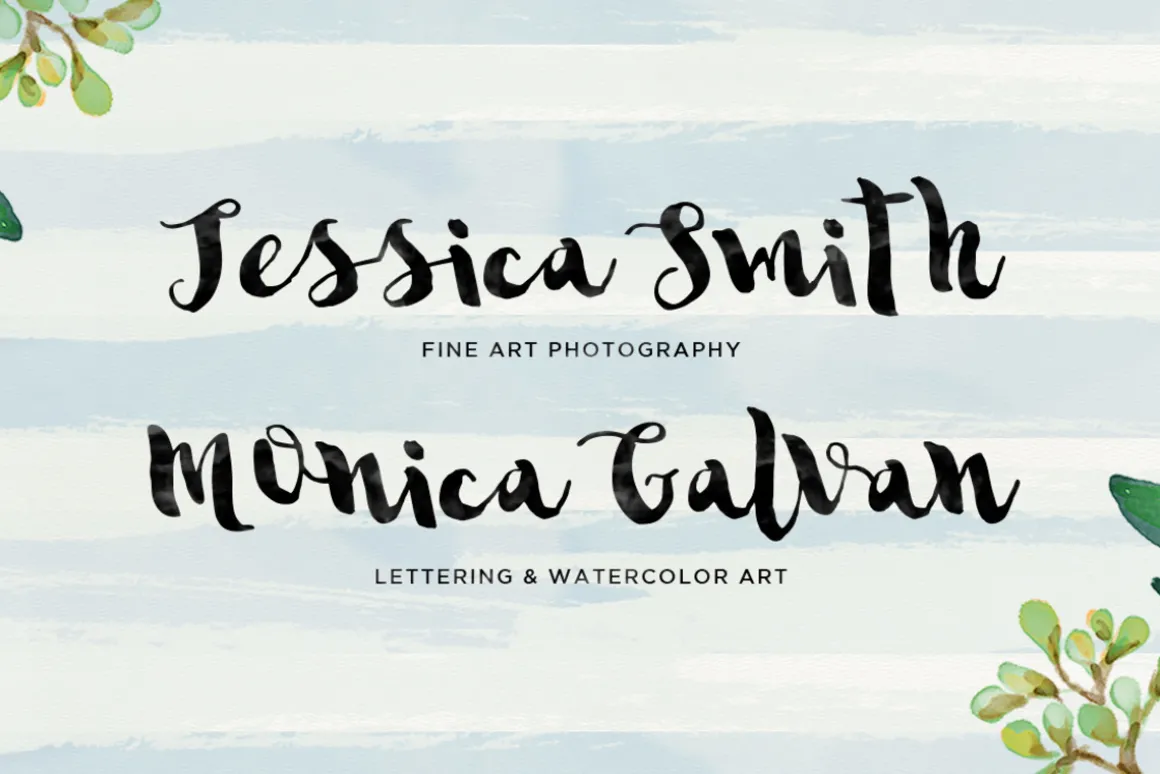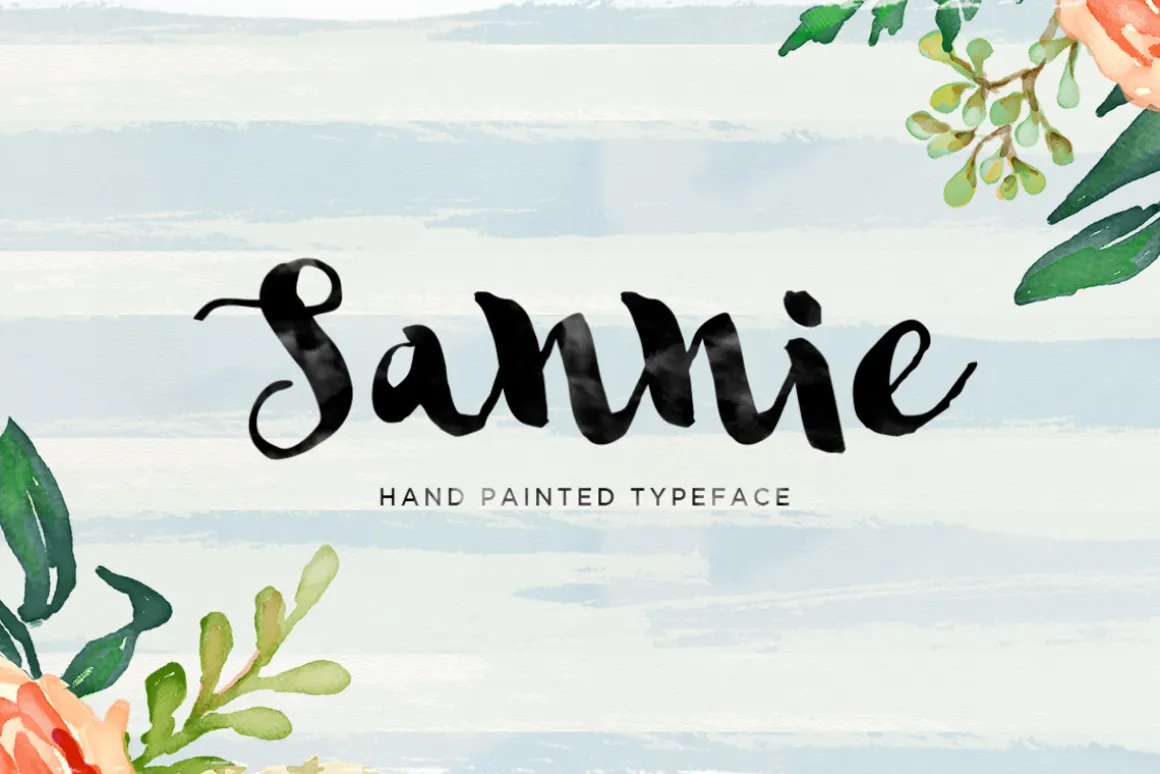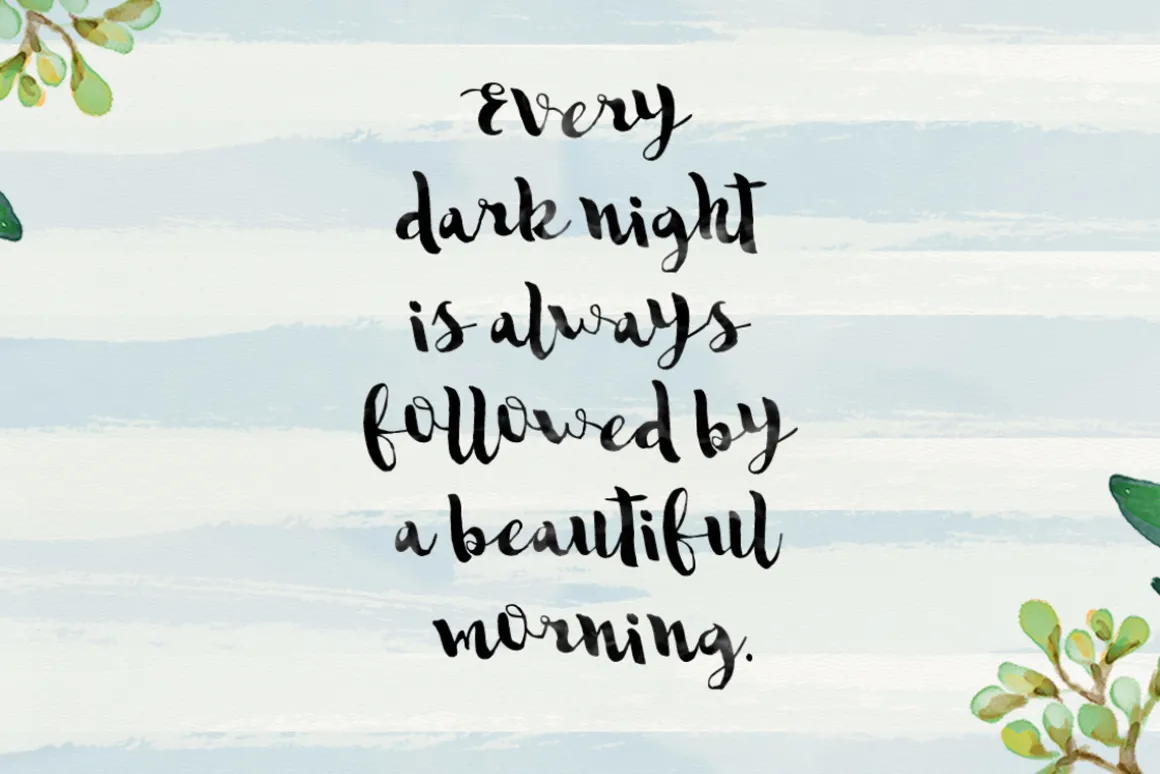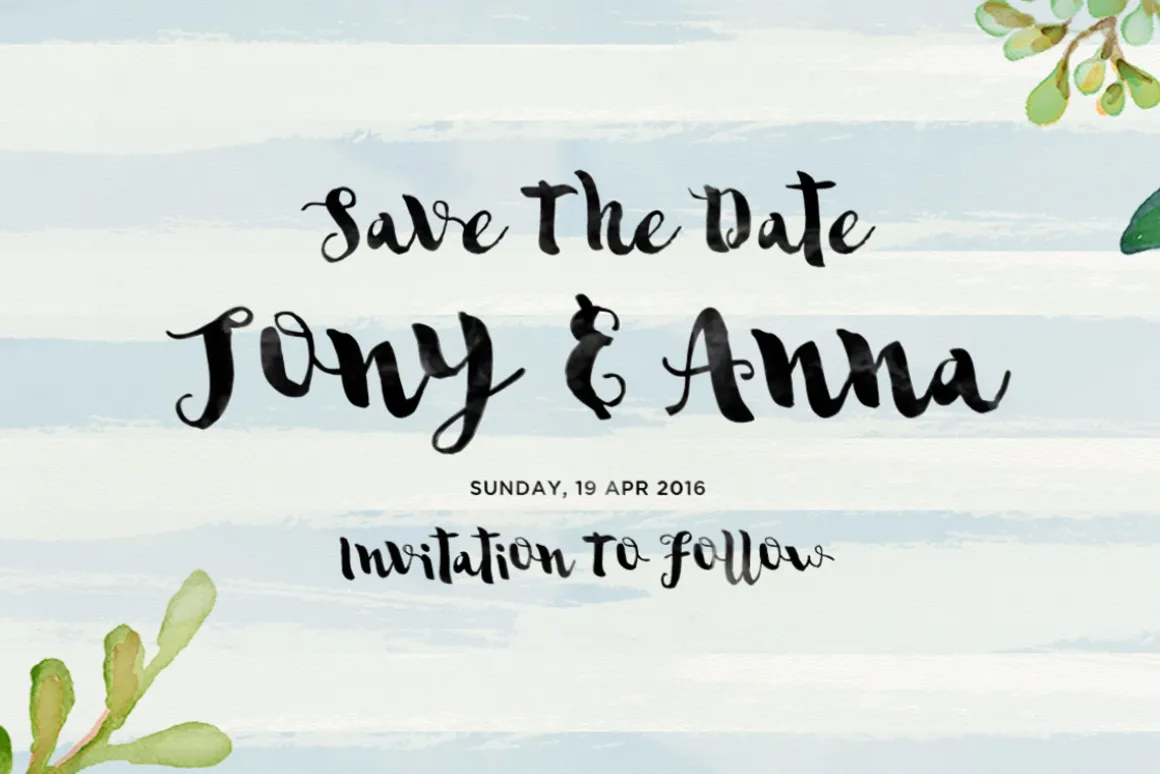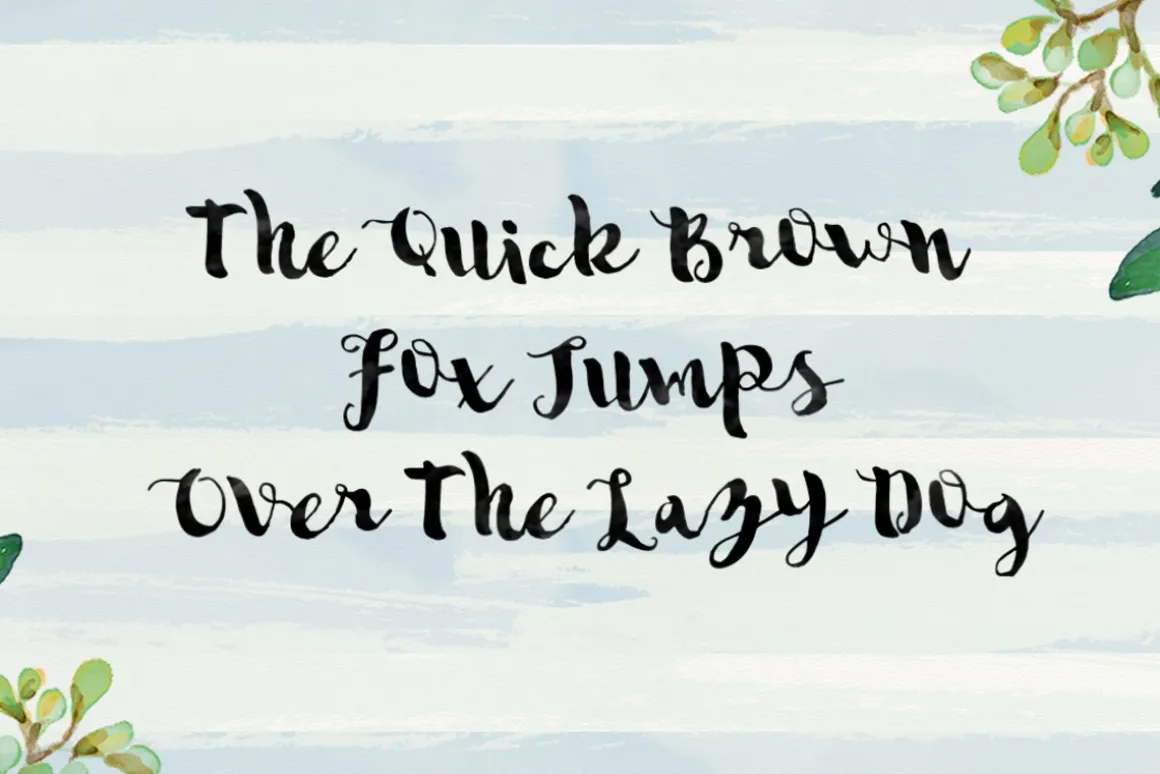
Sannie is a bold hand brushed lettering, hand painted look. Sannie looks lovely on wedding design projects, greeting cards, logos, business cards and more.Perfect for using in ink or watercolour based designs.Features: Uppercase -Lowercase -Numerals -Basic punctuations and supports international languages. Available in .OTF and .TTF formats.Thanks and happy creating!